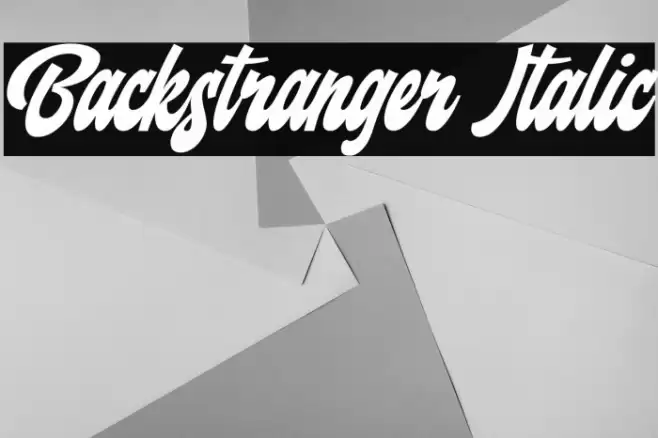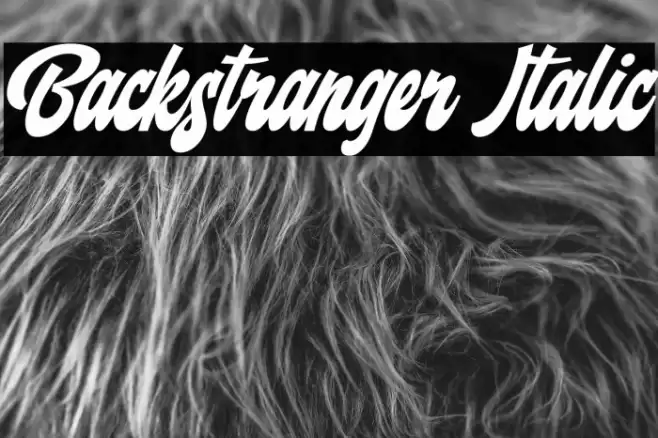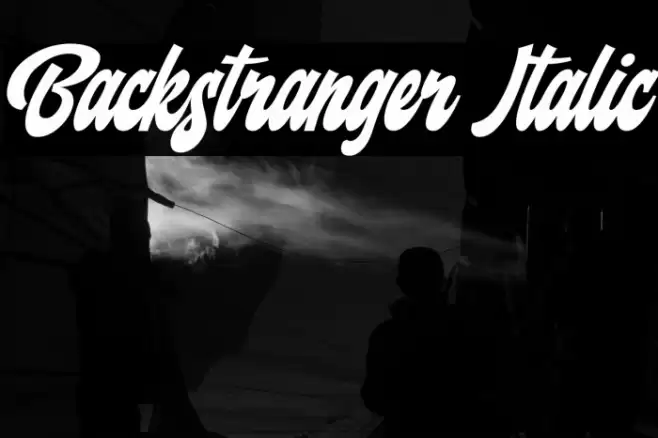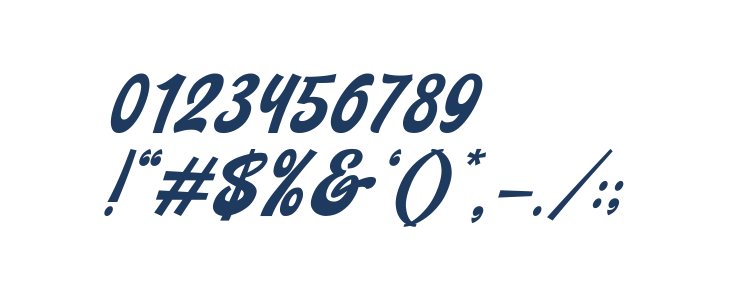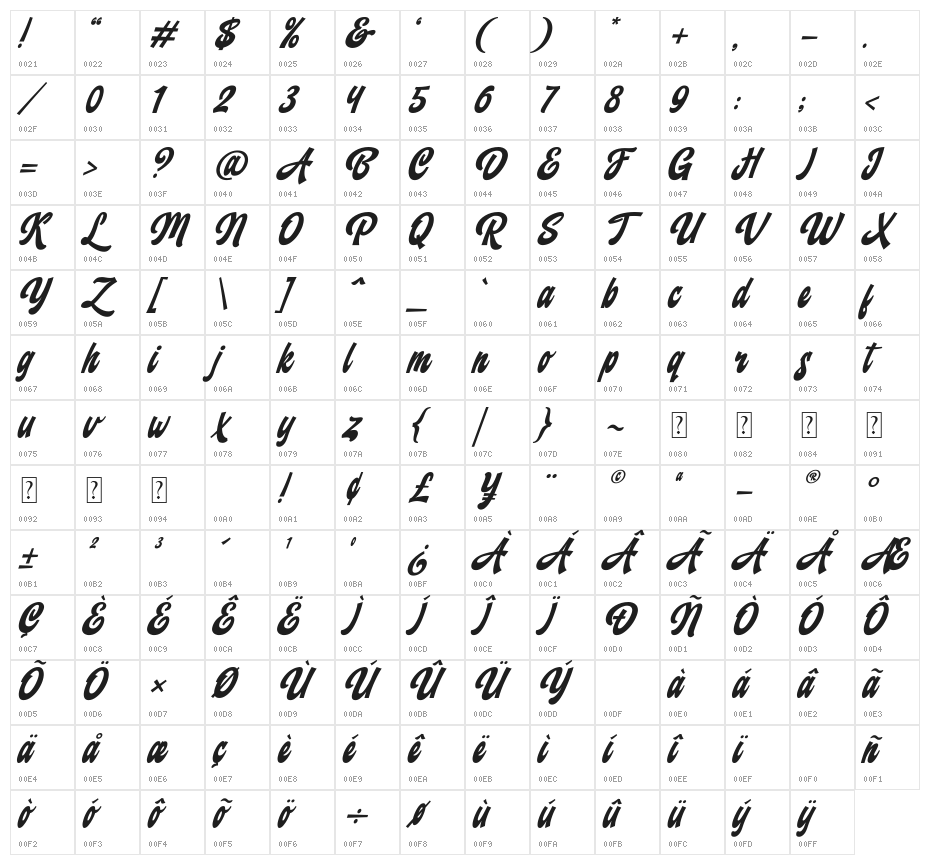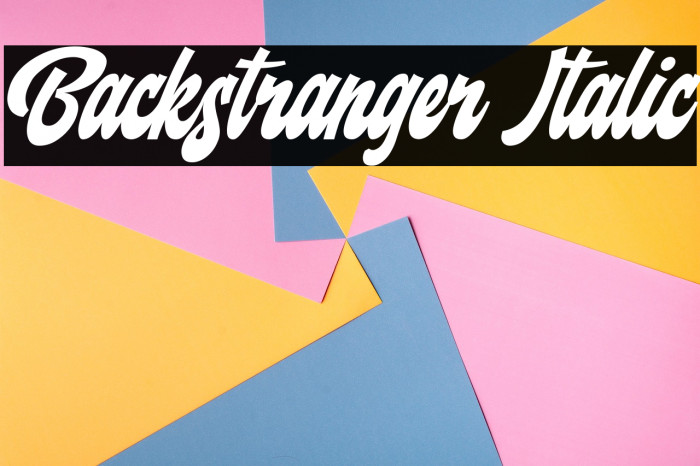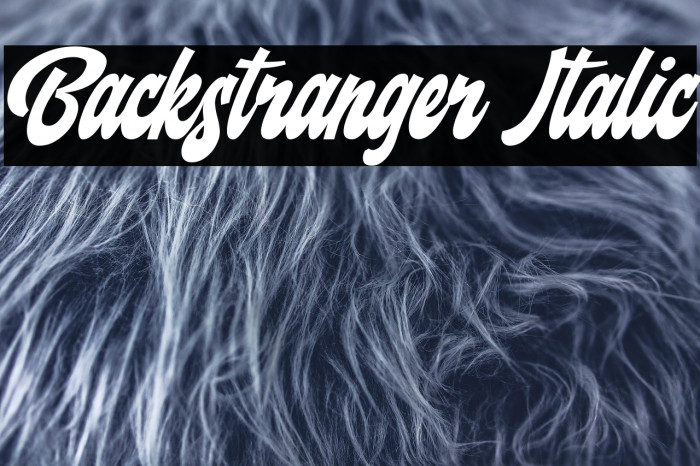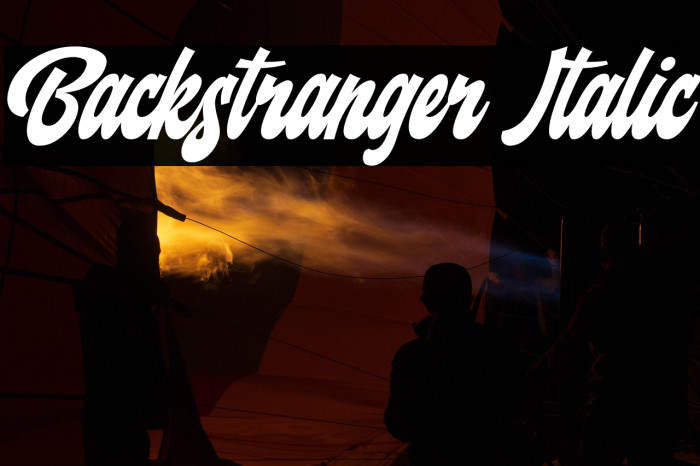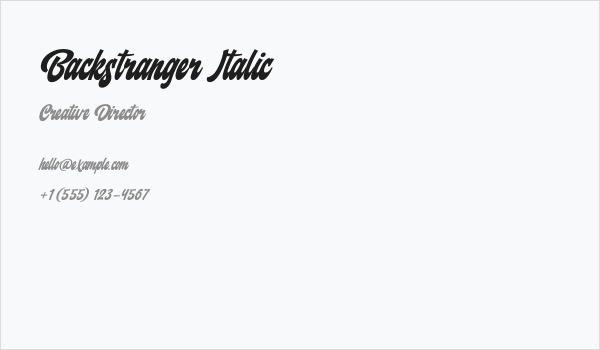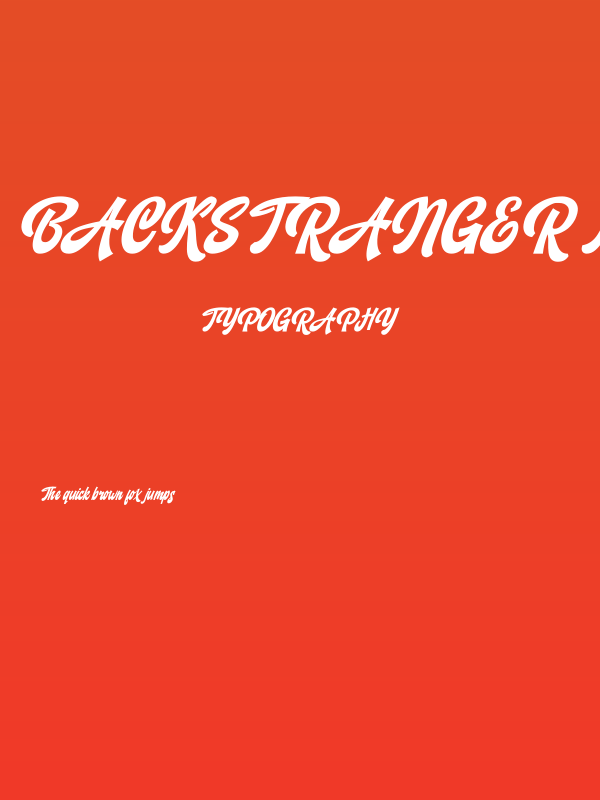
Backstranger Italic Font
Backstranger Italic Description
This font features a bold and dynamic script style with a strong italic slant, giving it a sense of movement and energy. The characters are closely connected, creating a flowing and cohesive appearance. The strokes are thick and consistent, providing a robust and impactful look. The uppercase letters are elegantly curved, while the lowercase letters maintain a smooth and rounded form. Numbers and special characters are designed to match the overall style, ensuring uniformity across all elements. This font is ideal for projects that require a bold and expressive touch.
A bold, italic script font with dynamic and flowing characters from Uncategorized fonts.
- Proposed Projects: Ideal for branding, logos, posters, and any design that needs a bold, expressive touch.
- Character Spacing: Tight